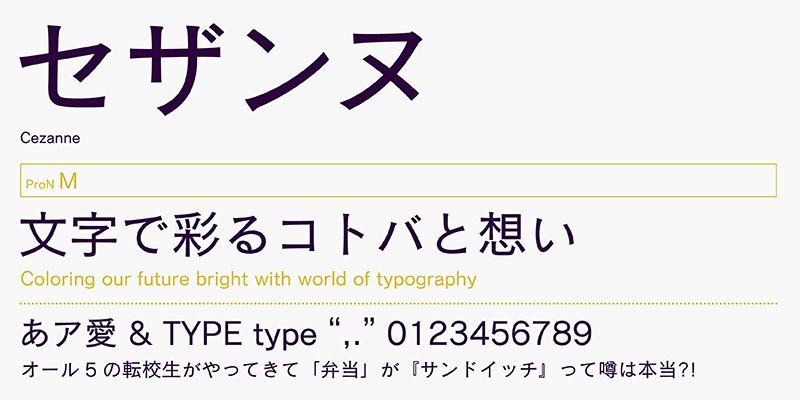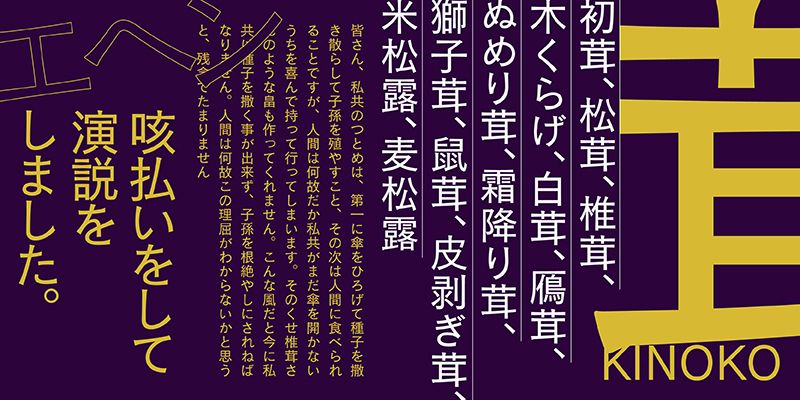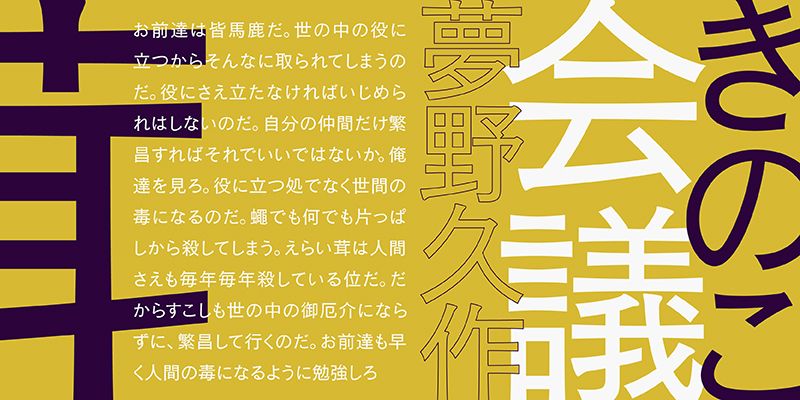
FOT-Cezanne ProN is a gothic (sans-serif) typeface whose accented strokes have serifs. Although the design is generally linear, its curved elements lend a warm feeling. Both kanji and kana characters are focused on the fundamental letterforms in order to be highly legible at a quick glance. This typeface is widely used for many purposes including signboards at railway stations in the center of Tokyo.